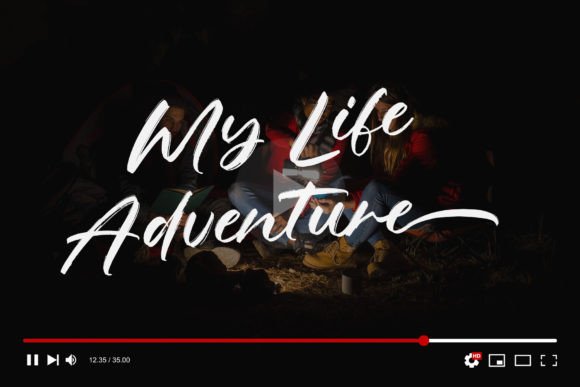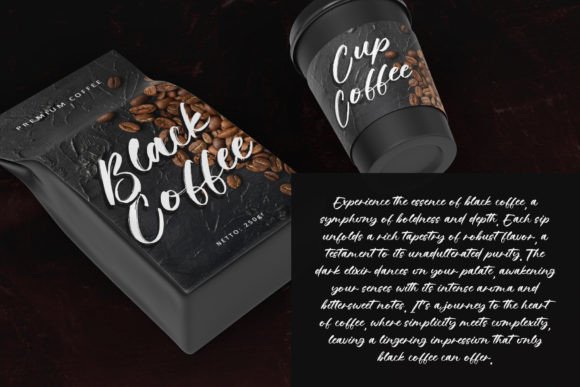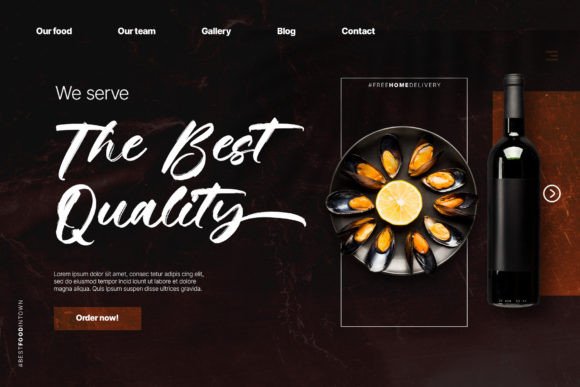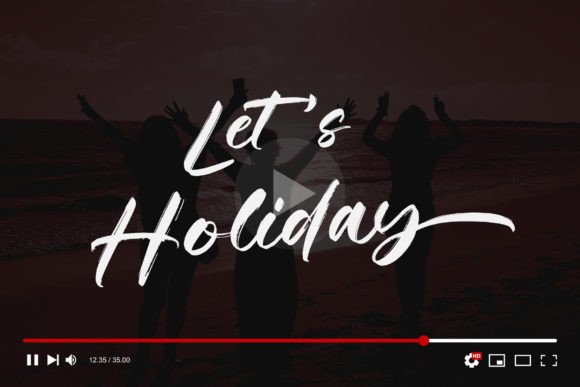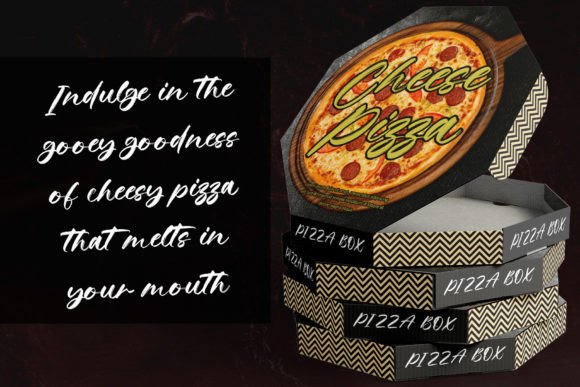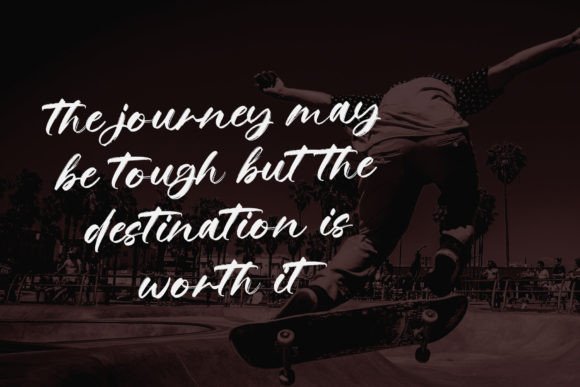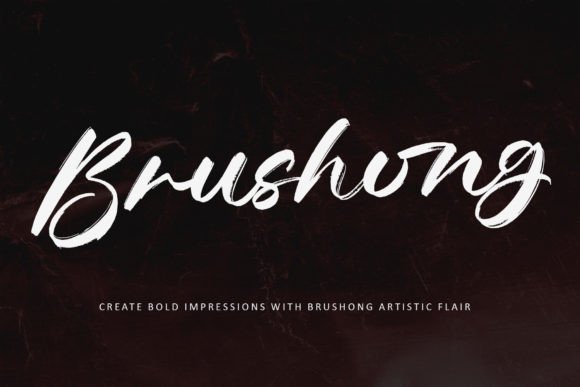
Introducing Brushong: Unleash the Power of Natural Brush Script Fonts
In the world of typography, few fonts manage to capture the essence of energy and authenticity as effectively as Brushong. This natural brush script font is designed to bring a dynamic, raw, and bold vibe to your designs, making it perfect for projects that demand a strong, stylish impression. Whether you’re a designer, craftsperson, or simply someone who appreciates the art of typography, Brushong is sure to elevate your creative work.
The Unique Charm of Brushong
Brushong’s appeal lies in its dynamic strokes and organic texture, which give it a distinctly natural and handcrafted feel. Unlike digital fonts that can sometimes appear sterile or overly uniform, Brushong boasts a smooth flow and expressive glyphs that convey character and vigor. This makes it an ideal choice for a variety of applications, from logos and posters to packaging and more.
Applications of Brushong
One of the most exciting aspects of Brushong is its versatility. This font can be used in a multitude of projects, including:
- Logos: Create a memorable brand identity with Brushong’s unique and bold style.
- Posters: Add a touch of energy and authenticity to your promotional materials.
- Packaging: Stand out on store shelves with eye-catching packaging that exudes character.
- Various Projects: From invitations to social media graphics, Brushong can add a stylish touch to any design.
Why Choose Brushong?
So, what sets Brushong apart from other script fonts on the market? Here are a few reasons why designers and crafters are falling in love with this natural brush script font:
- Authentic Look and Feel: Brushong’s organic texture and dynamic strokes give it a genuinely handcrafted appearance.
- Expressive Glyphs: The font’s smooth flow and expressive glyphs make it perfect for conveying character and energy.
- Versatility: Brushong can be used in a wide range of projects, from logos and posters to packaging and more.
Tips for Using Brushong Effectively
To get the most out of Brushong, here are a few tips to keep in mind:
- Experiment with Sizes: Brushong looks great in a variety of sizes, from large headlines to smaller body text.
- Play with Colors: The font’s organic texture looks fantastic in a range of colors, from bold and bright to more muted tones.
- Mix and Match: Don’t be afraid to combine Brushong with other fonts to create a unique and eye-catching design.
Brushong is more than just a font – it’s a design statement. With its natural, handcrafted feel and dynamic, expressive glyphs, this natural brush script font is perfect for designers and crafters who want to add a touch of energy and authenticity to their work. Whether you’re creating logos, posters, packaging, or more, Brushong is sure to elevate your designs and help you stand out from the crowd.